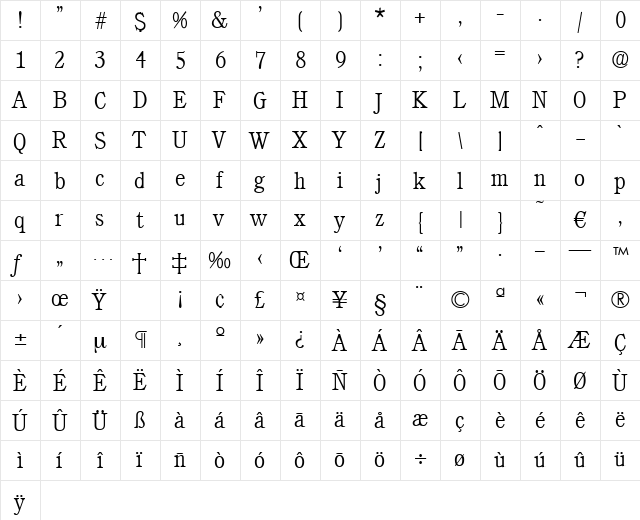
Calgary-Xlight Regular
Design Context for Calgary-Xlight Typeface
Calgary-Xlight is a composed and adaptable typeface that performs quietly and consistently across a wide range of design contexts. Its slender proportions lend an understated elegance to any composition.